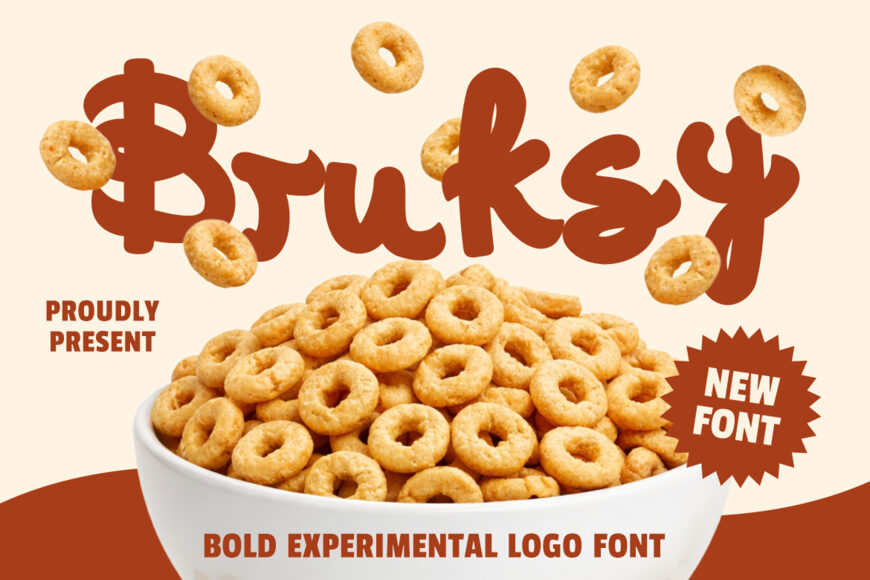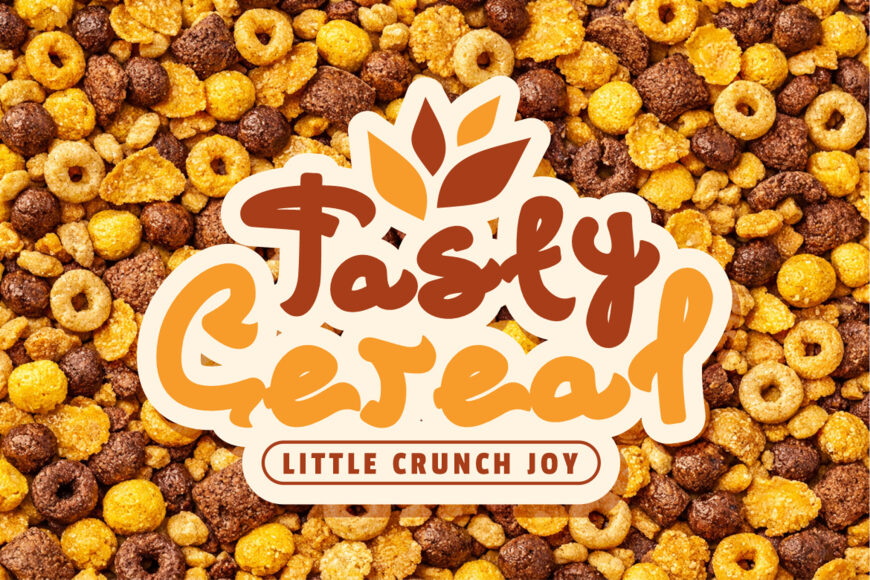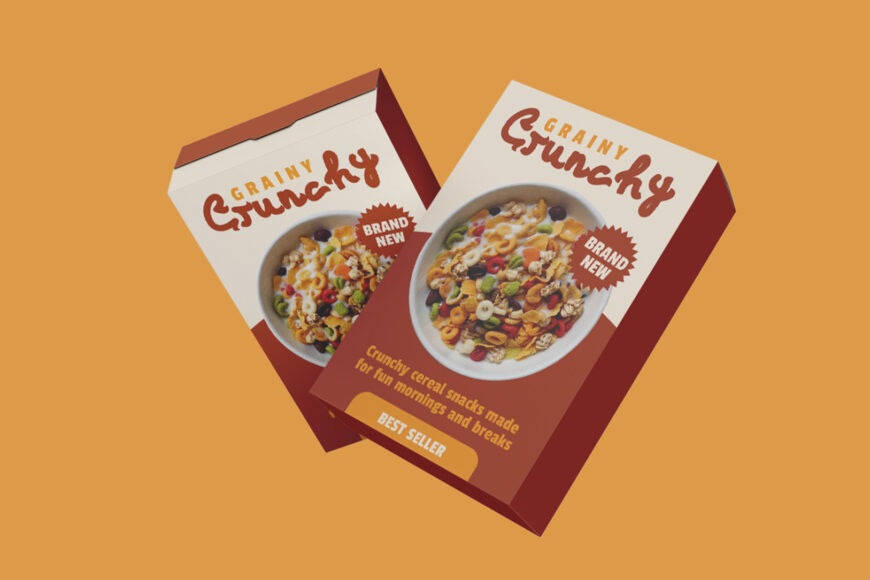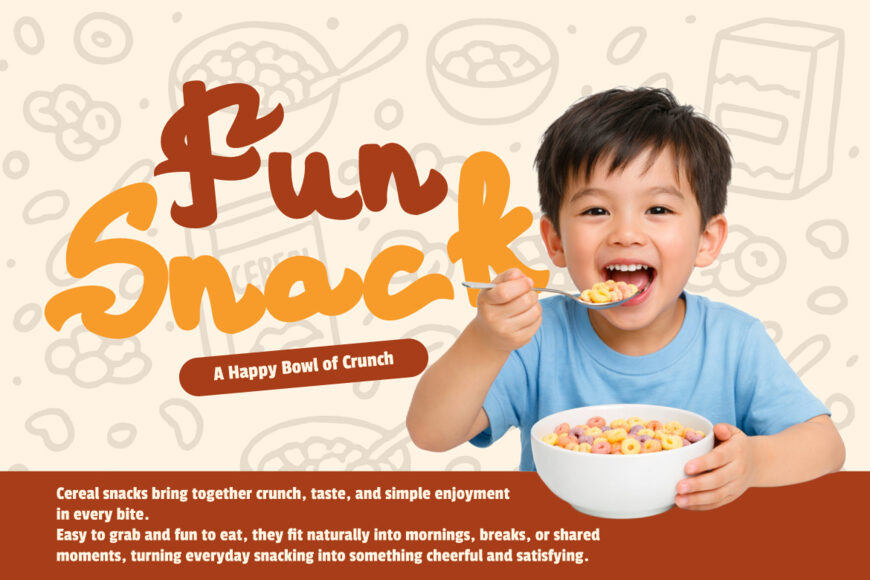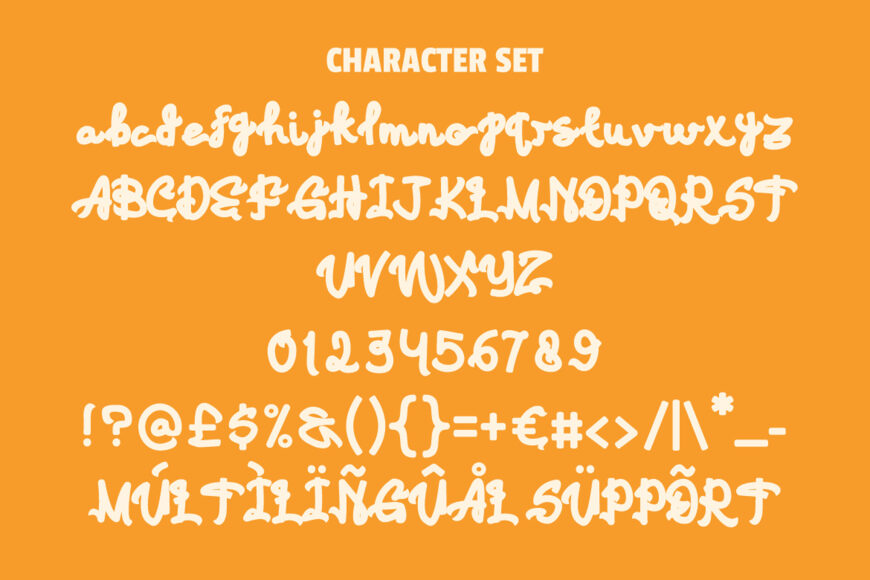
Bruksy Font
Bruksy Font delivers thick rounded strokes with lively hand-drawn energy. Each letter uses chunky weight, soft corners, and flowing curves that feel bold yet friendly. The forms look compact, expressive, and easy to notice from distance.
Uneven rhythm adds personality and gives every word a custom logo feel. It suits cereal brands, bakery products, candy labels, beverage packaging, and snack promotions. Use it for logos, packaging, posters, stickers, ads, menu boards, and social media titles.